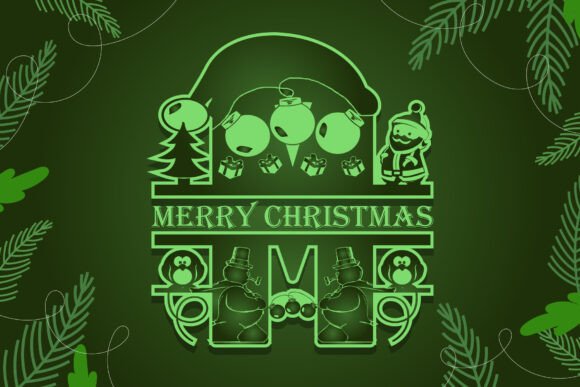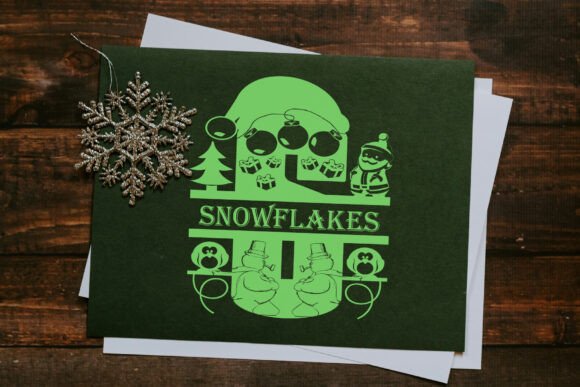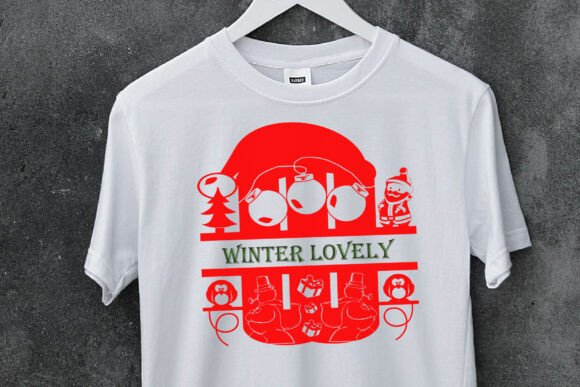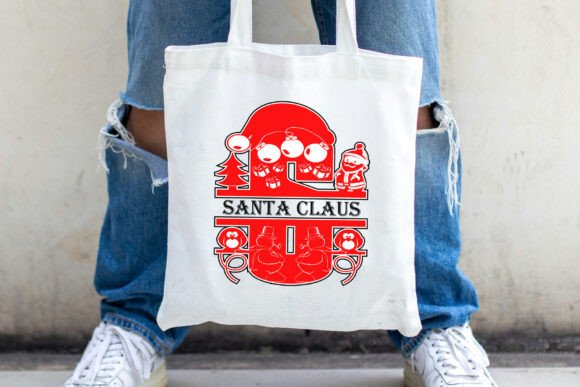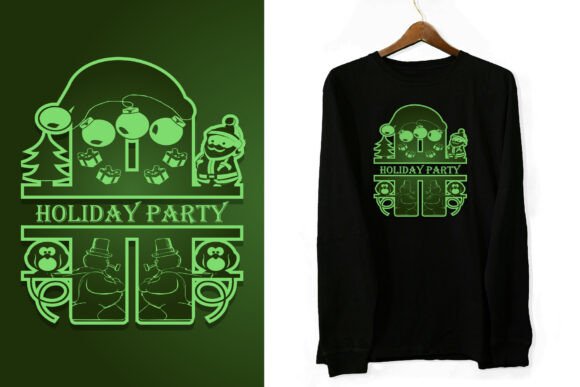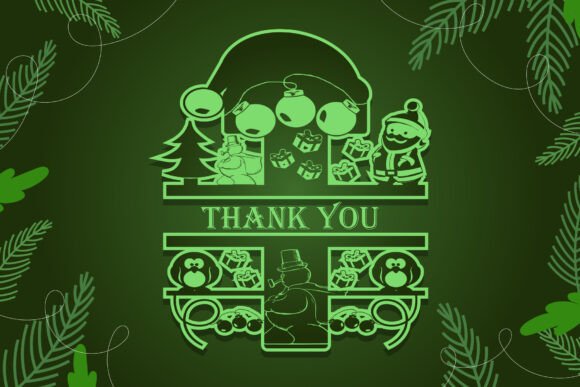
Getting into the Holiday Spirit with Grinch Monogram Font
As the holiday season approaches, designers and crafters are on the lookout for unique and festive fonts to add a touch of magic to their creations. If you’re in search of a font that embodies the spirit of the season, look no further than the Grinch Monogram Font. This gorgeous decorative font is a fantastic addition to any font library, and its versatility makes it perfect for a wide range of projects.
What is Grinch Monogram Font?
The Grinch Monogram Font is a beautifully designed font that features intricate details and a distinctive style. Its monogrammatic design makes it perfect for creating custom monograms, logos, and other graphical elements that require a personal touch. The font’s unique blend of elegance and playfulness makes it an excellent choice for a variety of applications, from holiday-themed crafts to professional design projects.
Why You’ll Love Grinch Monogram Font
So, what makes Grinch Monogram Font so special? Here are just a few reasons why you’ll love adding this font to your collection:
- Festive and Fun: The Grinch Monogram Font is perfect for the holiday season, with a style that evokes the whimsy and charm of Dr. Seuss’s beloved character. However, its versatility also makes it suitable for use in a wide range of projects beyond the holidays.
- Elegant and Sophisticated: Despite its playful nature, the Grinch Monogram Font also has an elegant side, making it perfect for more formal designs and projects that require a touch of sophistication.
- Highly Versatile: Whether you’re creating custom monograms, crafting holiday cards, or designing festive decorations, the Grinch Monogram Font can be used in a variety of applications. Its flexibility makes it an excellent addition to any font library.
- Easy to Use: The Grinch Monogram Font is designed to be user-friendly, making it easy to incorporate into your designs, even if you’re not a seasoned pro.
How to Use Grinch Monogram Font in Your Designs
Now that you’re excited about the Grinch Monogram Font, you’re probably wondering how to use it in your designs. Here are a few ideas to get you started:
- Custom Monograms: Use the Grinch Monogram Font to create custom monograms for gifts, decorations, or even personalized stationery.
- Holiday Cards and Invitations: Add a touch of festive flair to your holiday cards and invitations with the Grinch Monogram Font.
- Festive Decorations: Create eye-catching festive decorations, such as garlands, banners, and signs, using the Grinch Monogram Font.
- Digital Designs: Incorporate the Grinch Monogram Font into your digital designs, such as social media graphics, blog posts, and email newsletters.
Tips for Getting the Most Out of Grinch Monogram Font
To ensure you get the most out of the Grinch Monogram Font, here are a few tips to keep in mind:
- Mix and Match: Combine the Grinch Monogram Font with other fonts and graphics to create unique and eye-catching designs.
- Pay Attention to Details: Take the time to adjust the font size, spacing, and alignment to ensure your design looks polished and professional.